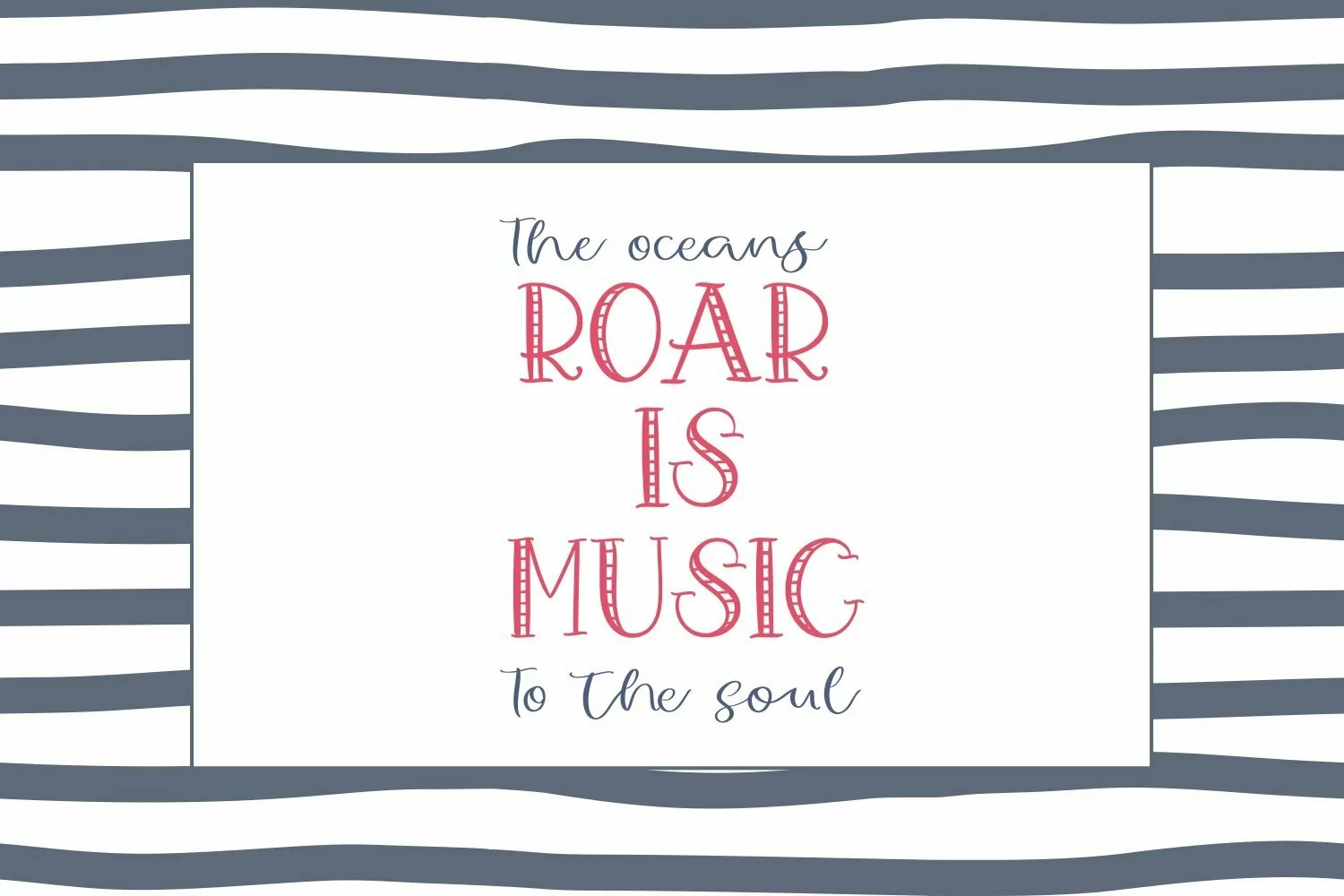
Sailor Benjamin Font Duo - it's a new font duo
Sailor Benjamin.woff - all uppercase sans serif font, numbers, punctuation
Sailor Benjamin Script.woff - standart and alternate uppercase, lowercase, numbers, punctuation